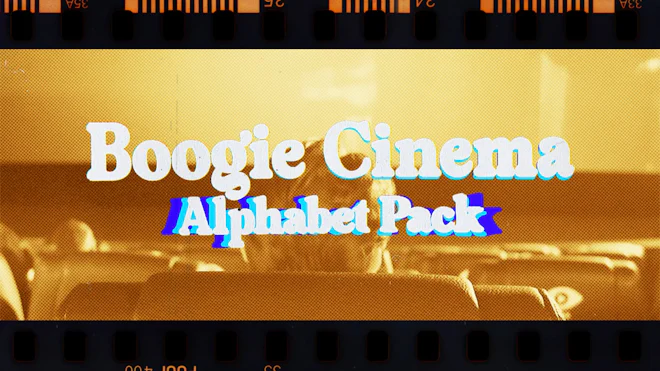
This motion graphics pack features a complete set of alphabets, numbers, and phrases inspired by nostalgic 1970s cinema aesthetics on an alpha channel. Designed with warm tones, film grain, and retro textures.